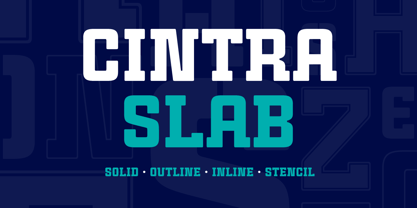
Cintra Slab Font
The Cintra Slab Font is a bold and sturdy slab serif typeface that is perfect for projects that need a strong, confident, and modern look. Its thick, block-like serifs and clean lines make it an excellent choice for a variety of creative applications. Imagine it on a powerful logo for an industrial company, a dynamic headline for a sports magazine, or the branding for a new tech startup. It's also fantastic for creating eye-catching posters, product packaging, and editorial layouts where its robust and reliable character can truly shine. The Cintra Slab Font brings a sense of authority and modern durability to any project, ensuring your designs are both impactful and trustworthy.
What makes this font so exciting is its impeccable balance of strength and readability. While its serifs are substantial and commanding, the overall letterforms are crafted with a modern, geometric precision that keeps the font from feeling heavy or outdated. This isn't just a font; it's a design tool that conveys a sense of stability, confidence, and professionalism. The consistent proportions and excellent legibility of the Cintra Slab Font make it a powerful tool for designers who need a typeface that works hard and looks great. It adds a strong and authoritative touch that will make your designs stand out and feel professionally crafted.
The Cintra Slab Font family is designed with versatility and functionality in mind. It comes in a range of weights, including Regular, Medium, and Bold, allowing you to create a clear visual hierarchy in your designs. Each weight maintains the font's distinctive slab serif style, ensuring a consistent and professional look across all your materials. This comprehensive family provides the tools you need to use the font effectively for both large, dramatic headlines and detailed body text, making it a valuable addition to any designer's toolkit. The different weights of the Cintra Slab Font ensure that your message is always clear and professionally presented, no matter the medium.